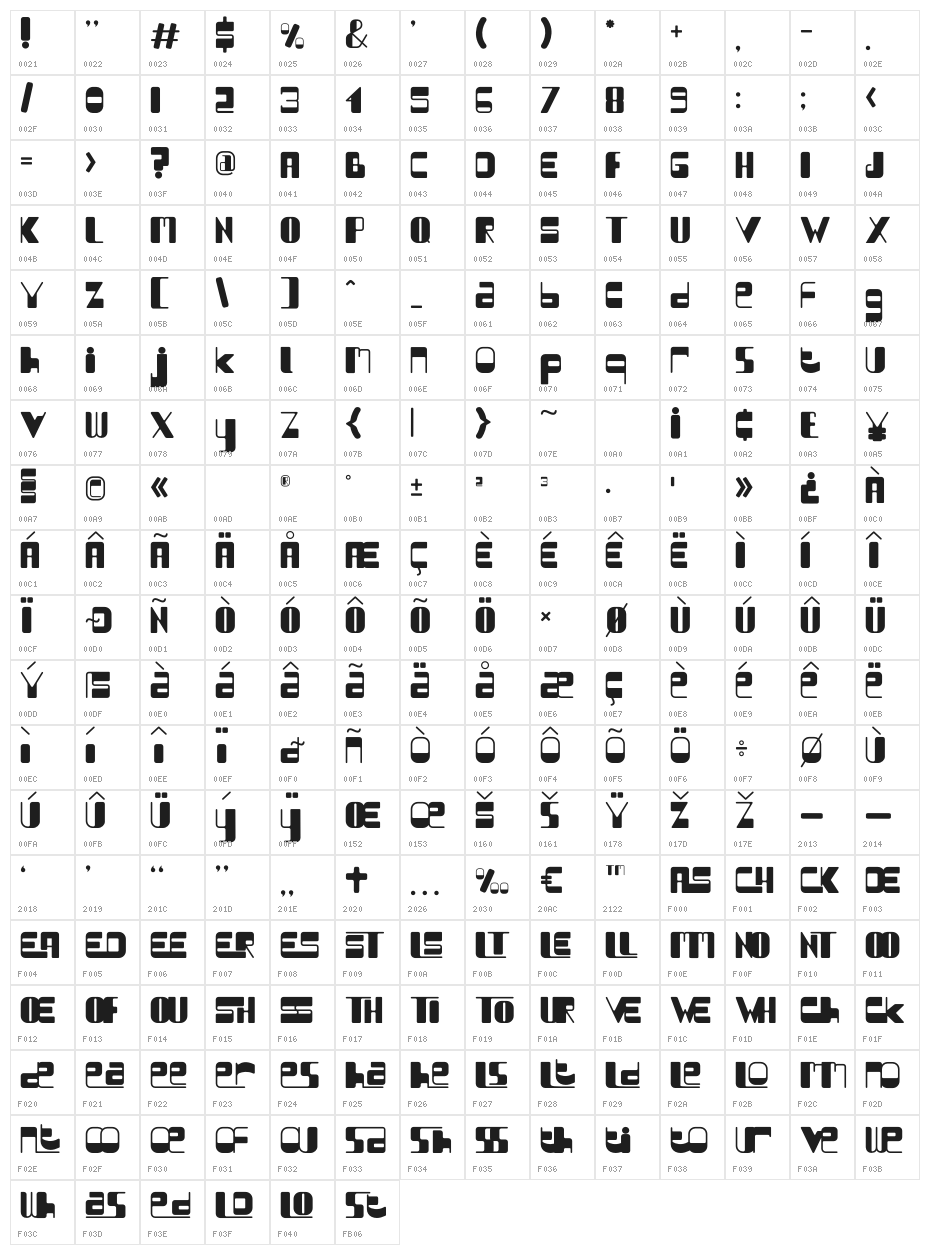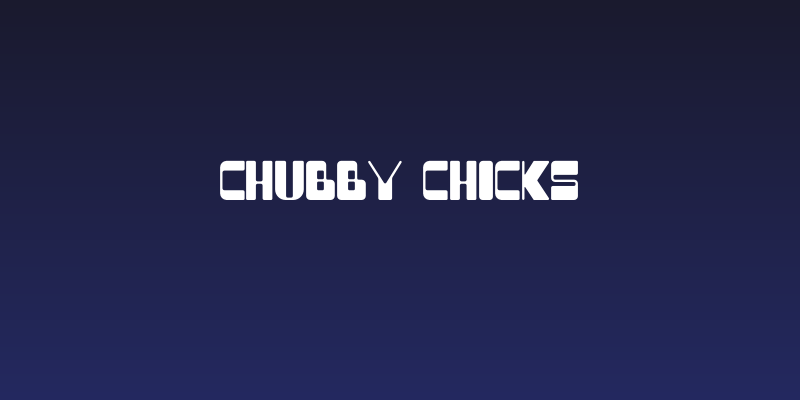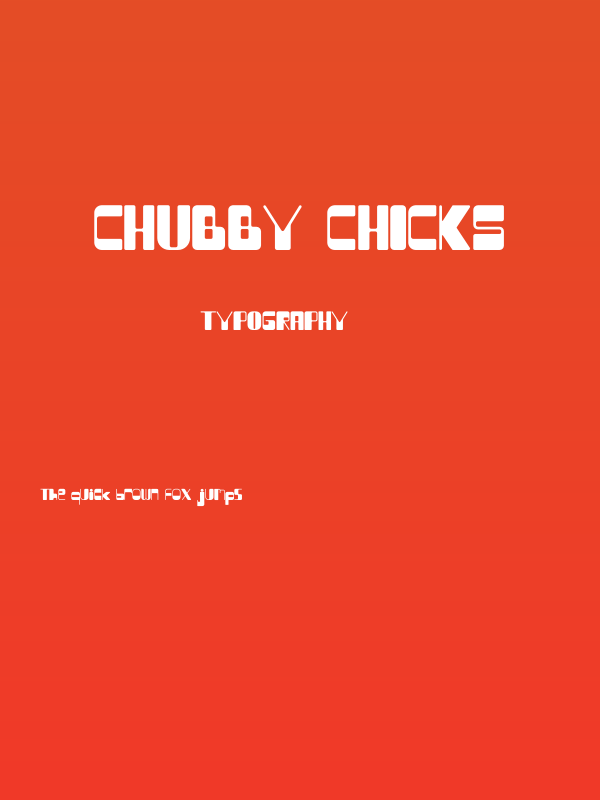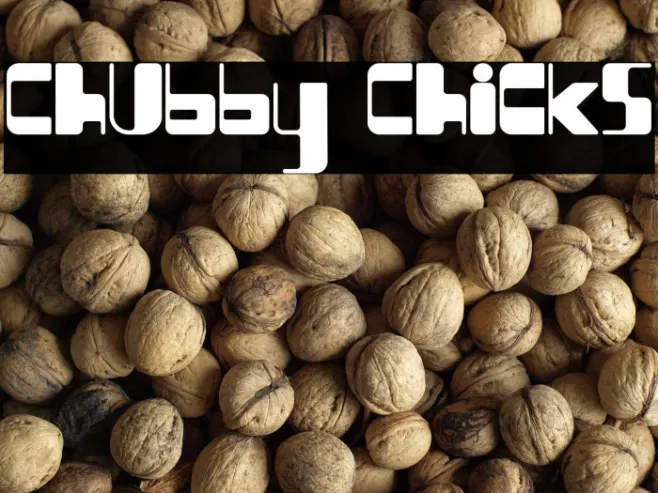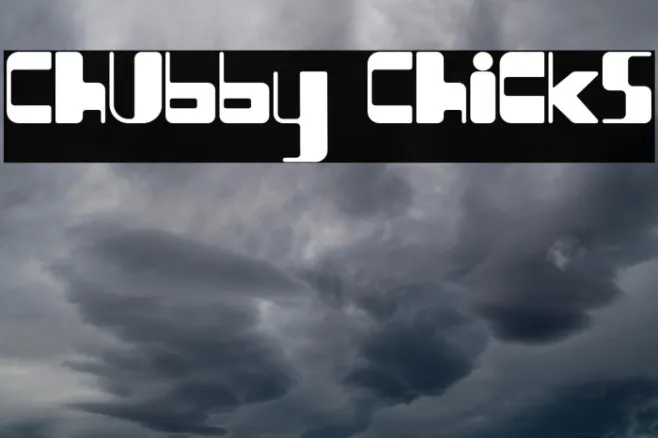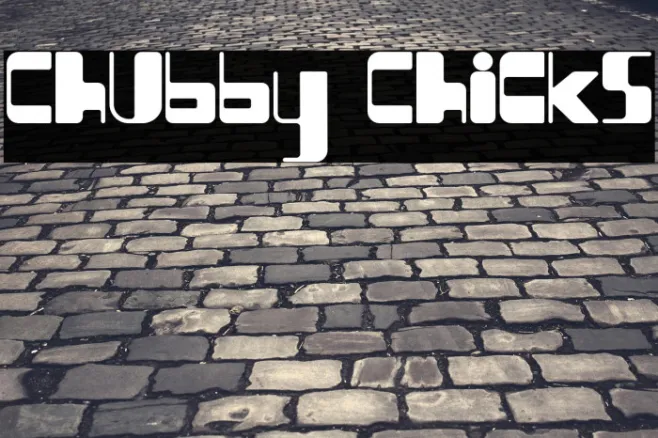
Chubby Chicks Font
Chubby Chicks Description
This font features a bold and playful design with rounded edges and a chunky appearance. The uppercase letters are uniformly thick, creating a strong visual impact, while the lowercase letters maintain a similar weight but with more variation in form. The numbers are consistent with the overall style, offering a cohesive look. Special characters are designed to match the boldness of the alphabet, ensuring a harmonious appearance across all glyphs. This font's unique style makes it stand out, offering a modern and fun aesthetic.
| Proposed Projects | Ideal for children's books, playful branding, posters, and creative projects that require a fun and bold typeface. |